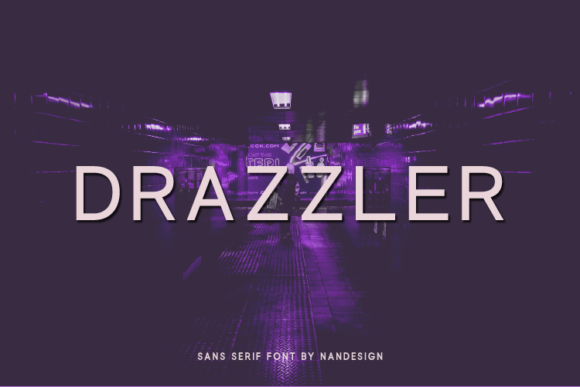
Prepare to be dazzled by Drazzler, the font that will add a touch of brilliance to your designs! A striking sans serif creation from the visionary Nan Design, Drazzler is the perfect choice for crafting a captivating professional resume that will leave a lasting impression.
With its clean and modern lines, Drazzler exudes sophistication and professionalism, making it the ideal choice for resumes that demand attention. Its carefully crafted characters are designed to enhance readability, ensuring that your words flow effortlessly off the page and into the minds of potential employers.
But Drazzler's versatility extends far beyond the realm of resumes. Unleash your creativity and use it to craft stunning invitations that will delight your guests, or create eye-catching logos that will make your brand shine. Its versatility is unmatched, making it perfect for a wide array of projects, from elegant wedding invitations to bold and impactful marketing materials.
Step into the spotlight with Drazzler and elevate your designs to new heights. Let its sleek and stylish characters dance across your screen, capturing the attention of all who behold it. With Drazzler, you'll create designs that radiate confidence, professionalism, and an unforgettable touch of brilliance.